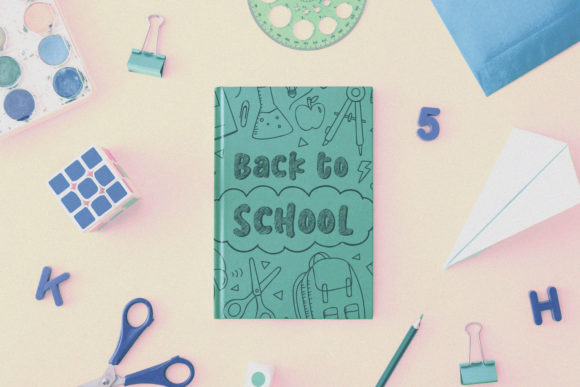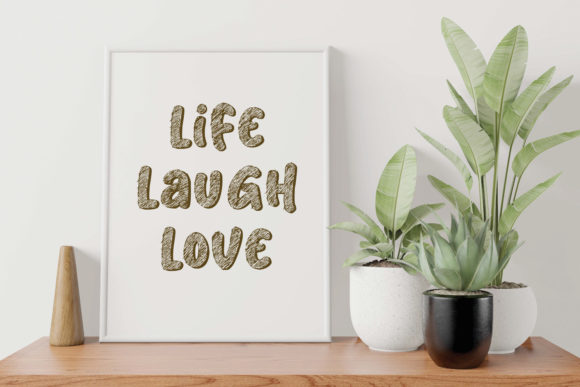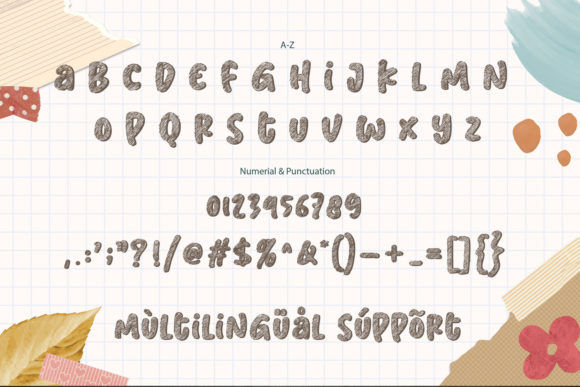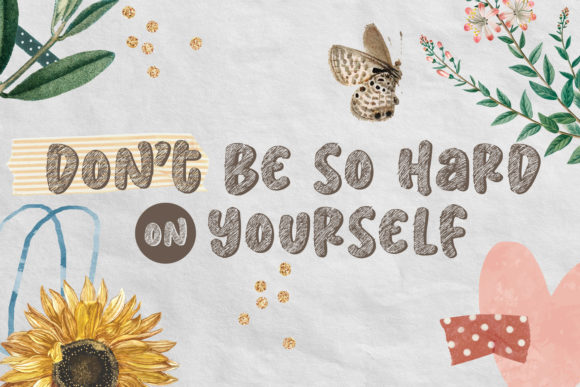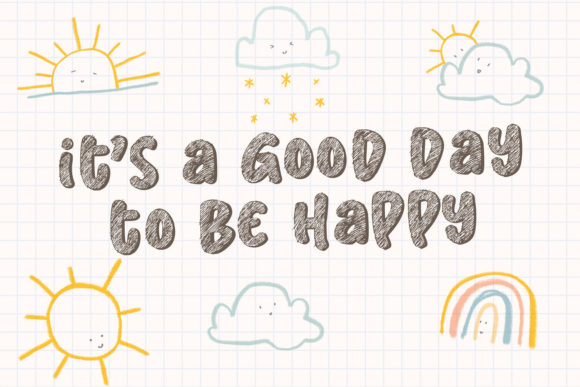
The Charm of Handwritten Chalkboard Quotes
Have you ever found yourself rummaging through your old school notebooks or dusty chalkboards, reminiscing about the carefree days of childhood? The nostalgic feel of chalkboard quotes, scribbled in haste, yet full of character, is something that many of us can relate to. As designers, we often strive to capture this essence in our work, and that’s where the Chalk Times Font comes in – a casual and simple lettered display font designed specifically for creating authentic chalkboard quotes and teaching materials.
The Chalk Times Font is a valuable tool for designers, allowing them to add a personal and realistic touch to their designs. With its authentic look, it’s perfect for creating a warm and inviting atmosphere, whether you’re designing a chalkboard quote, a teaching material, or even a decorative piece for your home. By incorporating the Chalk Times Font into your work, you can evoke the same sense of nostalgia and wonder that we experience when we look back at our childhood memories.
Chalk Times Font Key Features
- Font Style: A distressed, chalkboard-inspired font with a vintage feel.
- Unique Characteristics: Features a subtle texture and distressed effect to give a worn, chalkboard look.
Chalk Times Font Review
Overall, I think Chalk Times Font is a solid choice for those looking for a fun, handwritten font. Here are some things that work well:
- ✨ The font has a great, organic feel to it – it looks like it was handwritten by a person, not a machine.
- ✨ The font is highly customizable, with a wide range of weight and style options available.
- ✨ It’s a great choice for titles and headings, where you want to add a touch of personality to your design.
- ⚠️ The font may not be the best choice for large blocks of text – the handwritten feel can make it harder to read.
- ⚠️ Some of the characters may not be as well-formed as others – for example, the ‘q’ and ‘j’ can look a bit wonky.
Overall, I think Chalk Times Font is a great choice for designers who want to add a touch of personality to their work. Just be aware of the limitations, and use it sparingly in large blocks of text.
Chalk Times Font is a distressed, handwritten font that works well for creating a vintage or rustic look. Here are some tips for getting the most out of it:
- Use it for headings and titles to add a touch of elegance.
- Combine it with other distressed fonts to create a unique look.
- Use it for quotes or lyrics to add a personal touch.